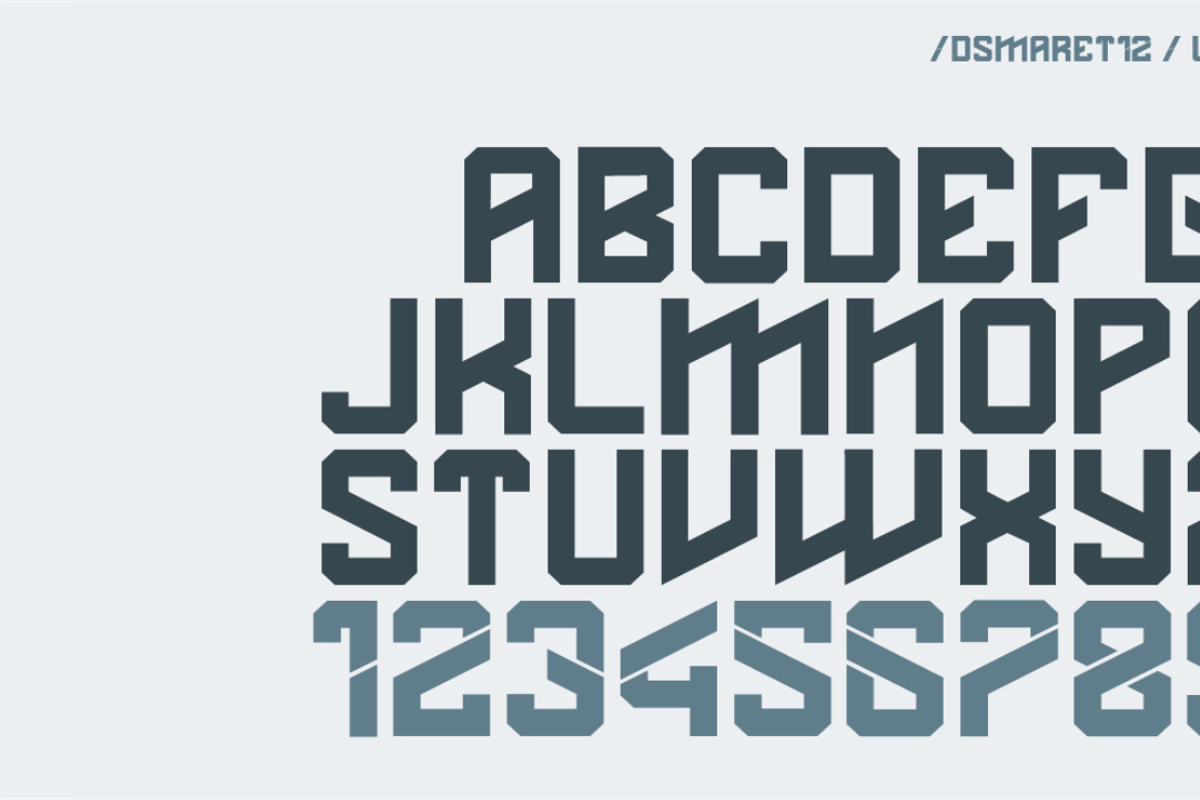
DS MARET`12
A legendary oldschool techno style is BACK!! This call DS MARET`12 Based inspirations from Dylovastuff Typeface. BOLD typeface with techno / modern style most suited for your works especially for short texts, headlines, and sub-headlines, logos, posters and branding
DS MARET`12 comes including uppercase and lowercase characters and numerals, it's perfect for creating a Modern style artwork,TYPOGRAPHY, Headline, or Logotype and t shirt/apparel design this really great font for your band, company, label, clothing company and others! don't forget to check my others typeface : https://crmrkt.com/azA7B